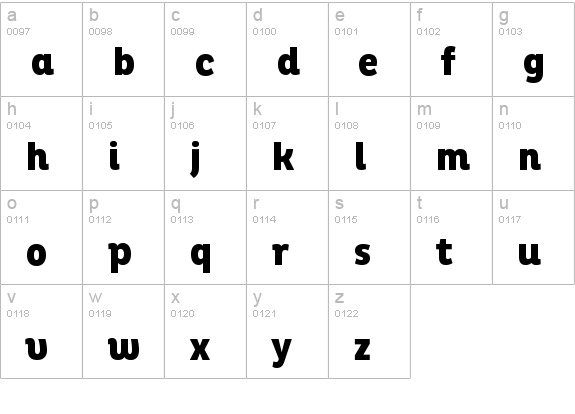
Pluto Cond Heavy is a heavy, high-impact, condensed-width variant in the Pluto typeface family \xE2\x80\x94 well suited to high-impact headlines, posters, and display advertising.
Pluto Cond Heavy font is a bold and modern typeface that exudes strength and sophistication. With its condensed design and heavy weight, this font commands attention and is perfect for making a bold statement in your designs. Whether you're working on a poster, logo, or headline, Pluto Cond Heavy will ensure that your message stands out. The best part? Pluto Cond Heavy font is available for free download at FontsMarket.com. This means you can easily access this powerful font and incorporate it into your projects without any cost. Don't miss out on the opportunity to enhance your designs with the striking appeal of Pluto Cond Heavy font. Download it today and take your creations to the next level.